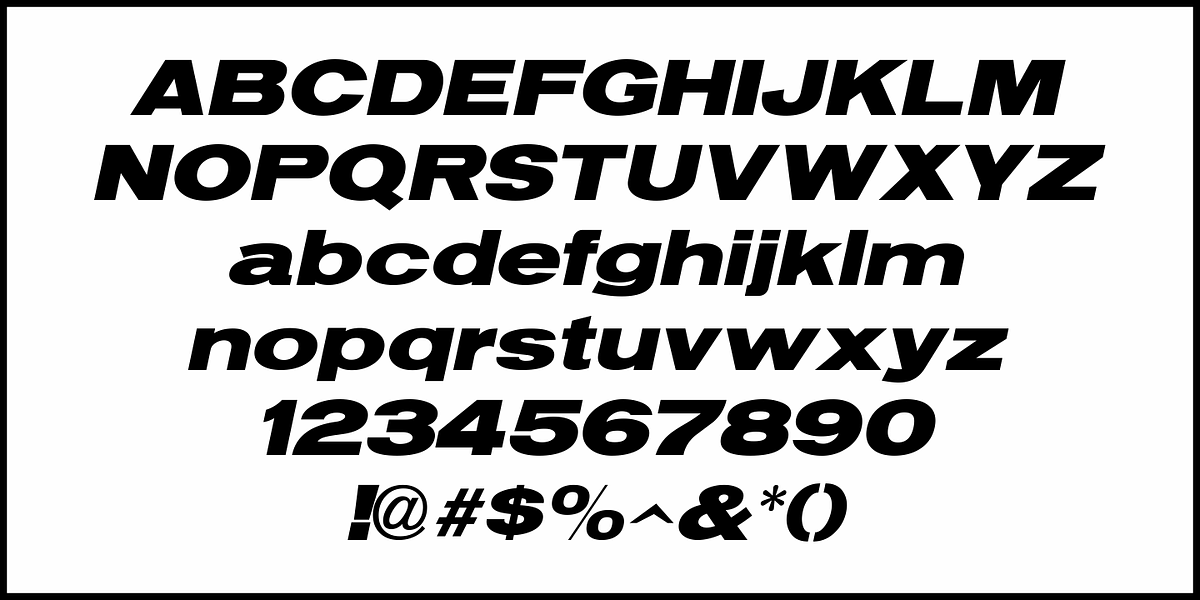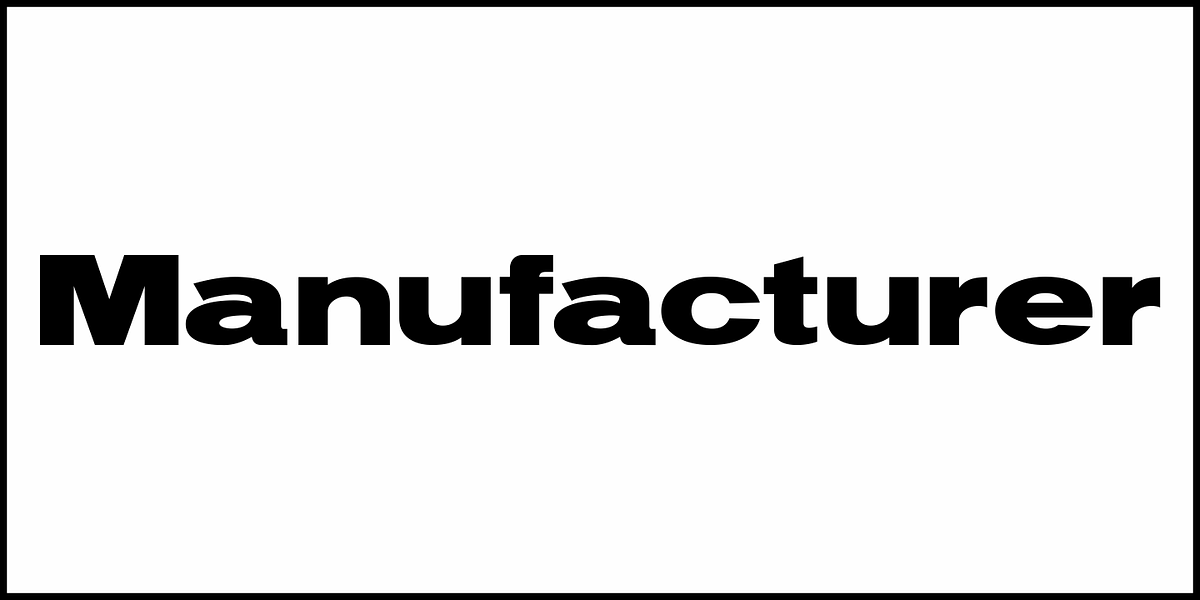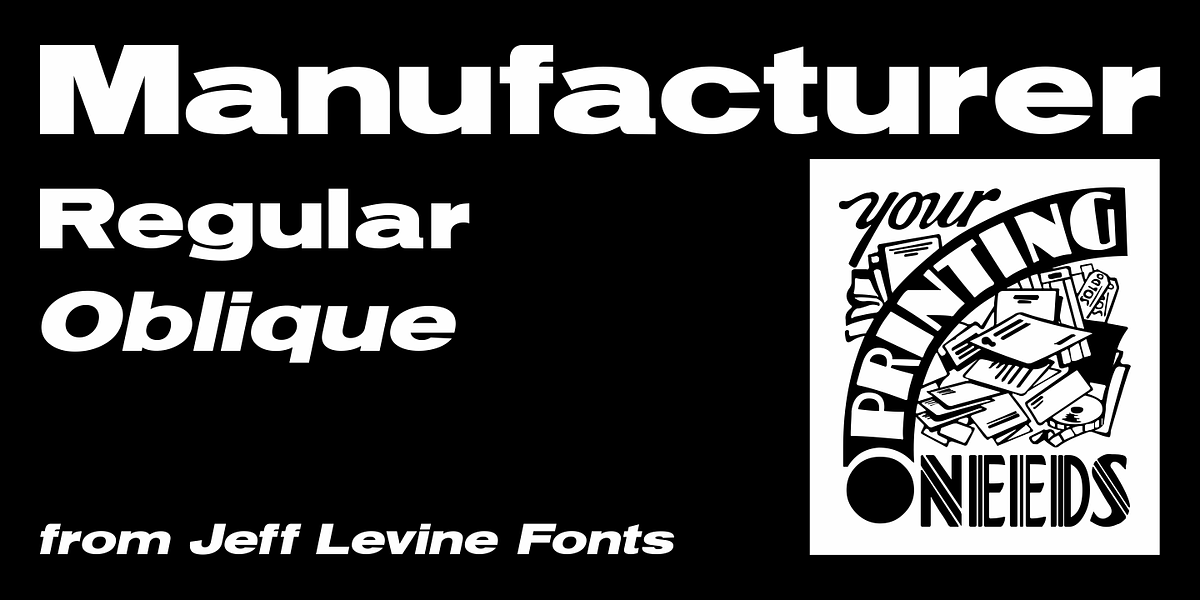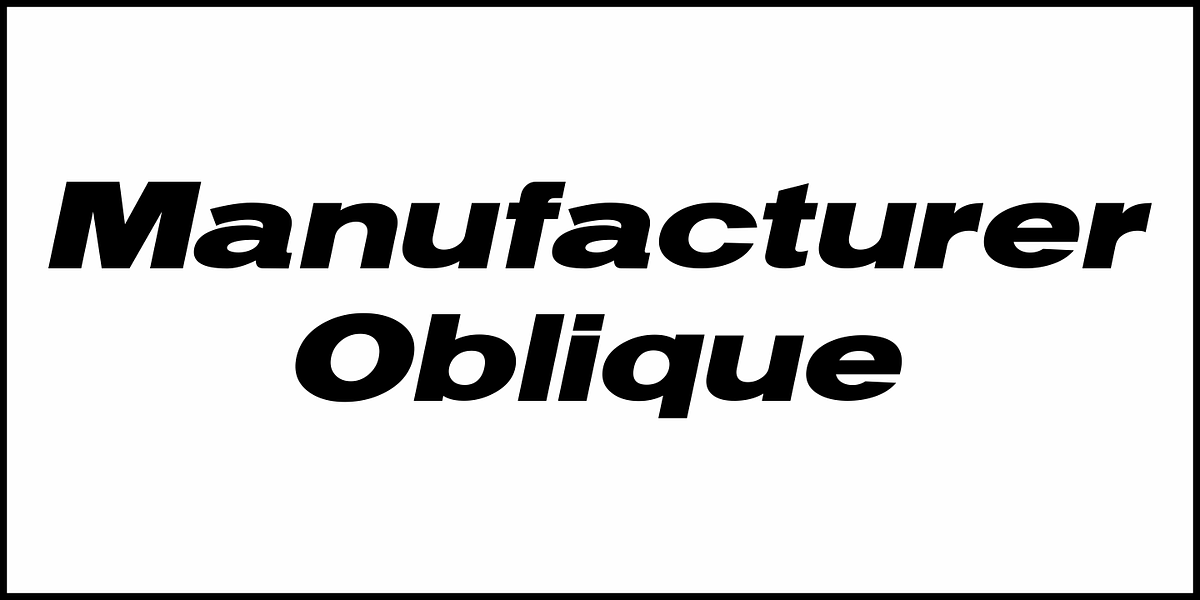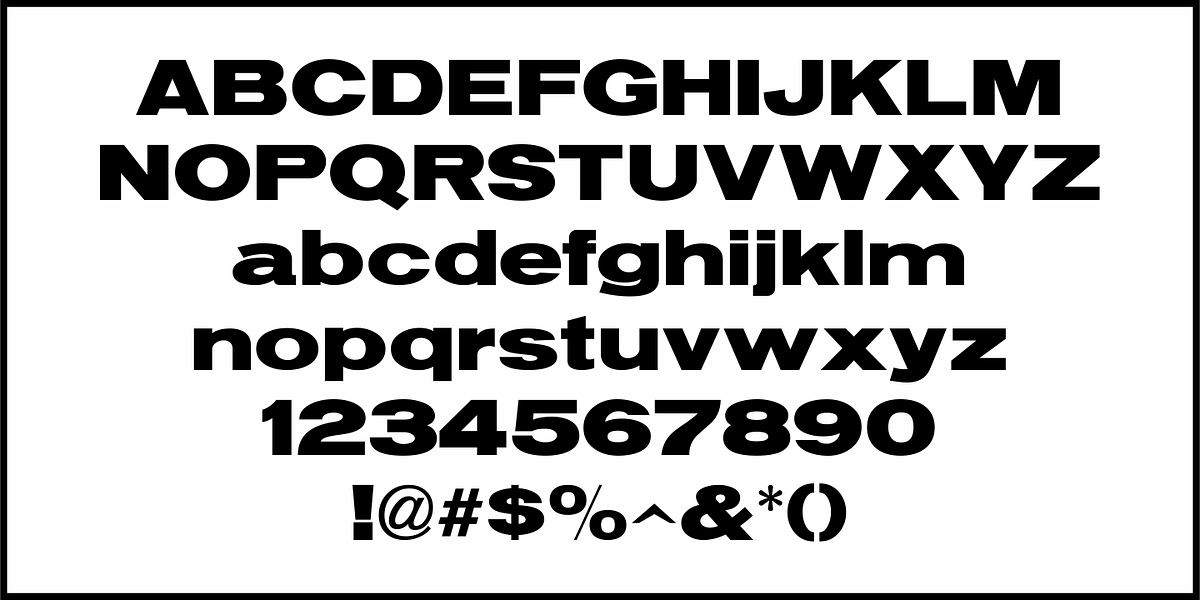
Manufacturer JNL
Manufacturer JNL is a reinterpretation of the classic type face Venus Extra Bold Extended, and is available in both regular and oblique versions.